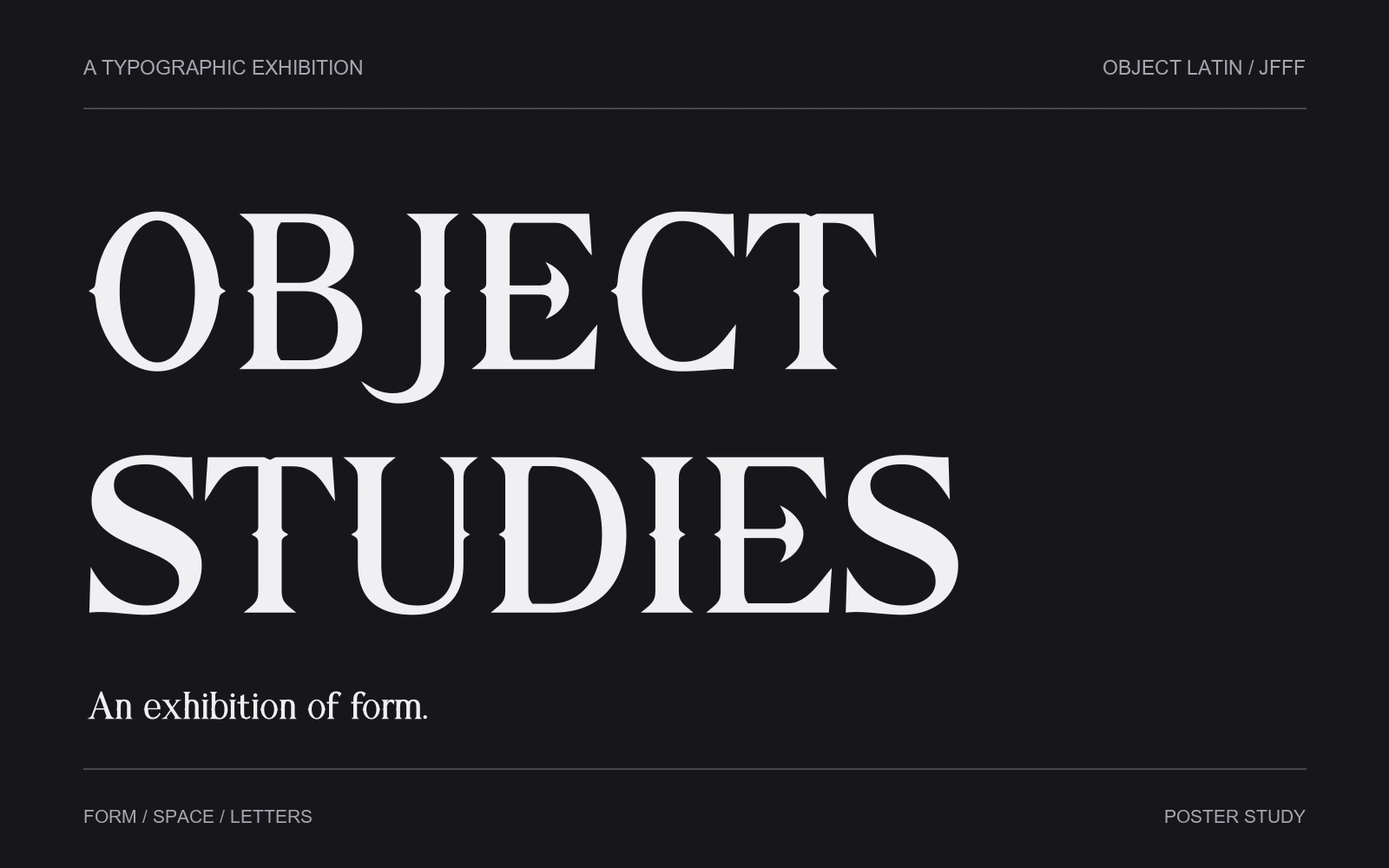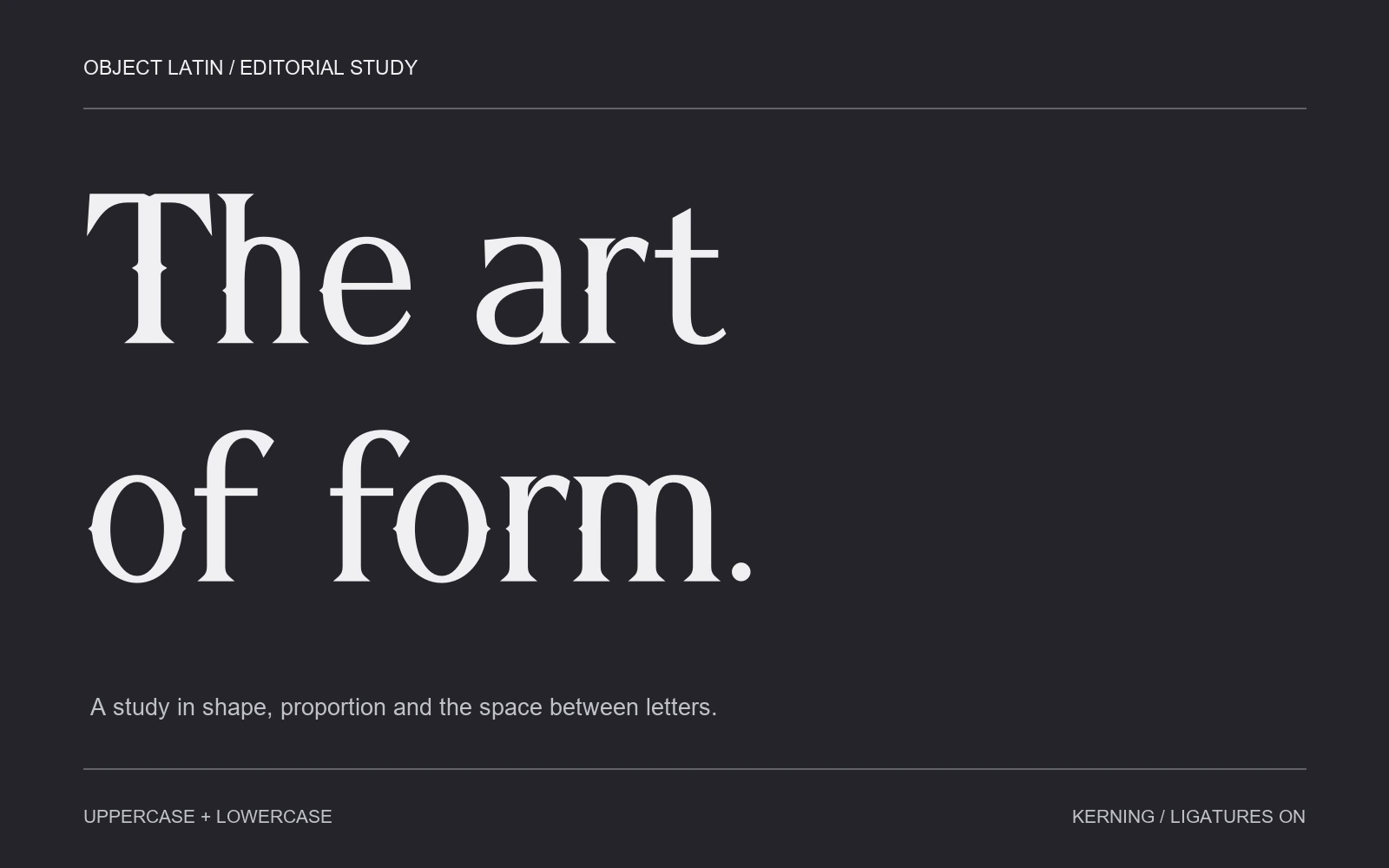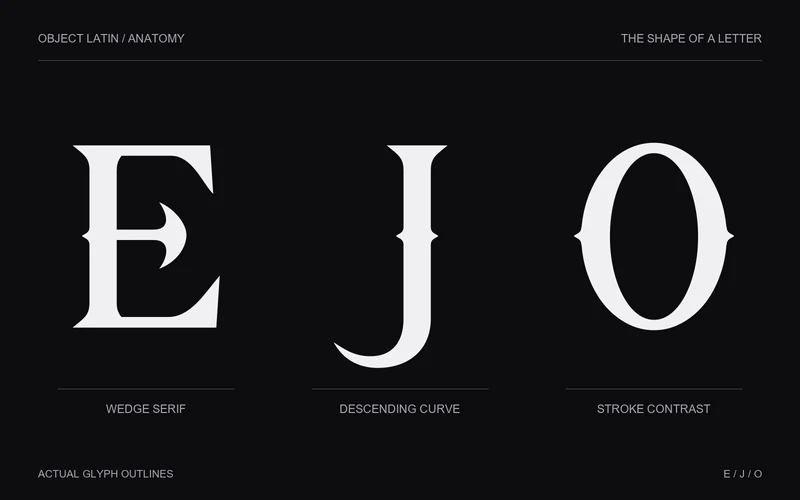
An edge with tension
Straight strokes meet pointed wedge serifs. At headline sizes, the direction of each stroke ending becomes clear.
Wedge serifJFFF · Display
OBJECT Latin. Sharp capitals and flowing lowercase forms.
1 / 4QUIET DRAMA
Object Latin gives short phrases a lasting presence. Wedge-shaped serifs, fine strokes against bold stems, and the sweeping curve of J create its character. The detail is in the letterforms.
IN CONTEXT
Two settings chosen for the rhythm of the letters and the meaning of the words.
The round counter of O sits alongside the straight strokes of T and E. A short, two-line title lets the letterforms carry the poster.
Mixed case softens the tone. Moving ‘of’ to the second line gives the title a measured rhythm, with the final period completing the composition.
THE LETTERS
Actual glyphs, enlarged. Look at the stroke endings, the movement of the curves and the space inside.
Straight strokes meet pointed wedge serifs. At headline sizes, the direction of each stroke ending becomes clear.
Wedge serifThe descending curve softens a strong vertical stem. Leave room below the baseline so the shape can breathe.
Descending curveThick and thin strokes surround an oval counter, bringing a curved rhythm to a sequence of straight letters.
Stroke contrastSETTING THE TYPE
Try a little extra space in all-caps titles. For mixed case, start with the default spacing. Keep kerning on and test the words you will actually use.
FORM & SPACE
Objects of lasting beauty.
These specimens scale with your screen. Use the tester below to set an exact pixel size, tracking and line height.
BEFORE YOU USE IT
Fine strokes and serif details become less distinct at smaller sizes. Compare the same sentence below.
A quiet room. A lasting impression.
Keep it short. Recommended print size: 48–120 pt. These on-screen pixel samples do not represent the same physical size. Check a printed proof before production.
Pair it with readable body type. A neutral sans serif for longer text and small interface labels gives the headline more room to stand out.